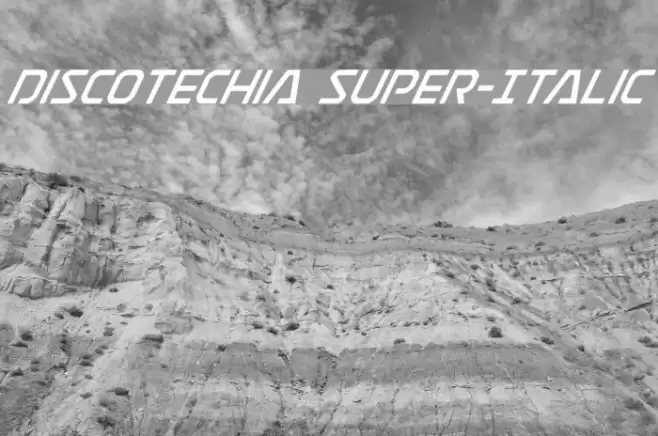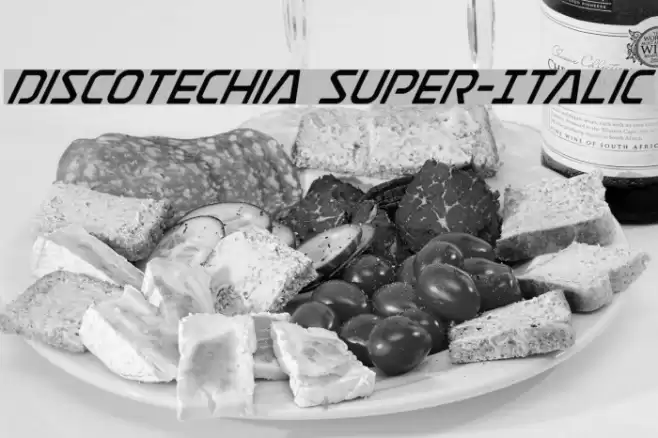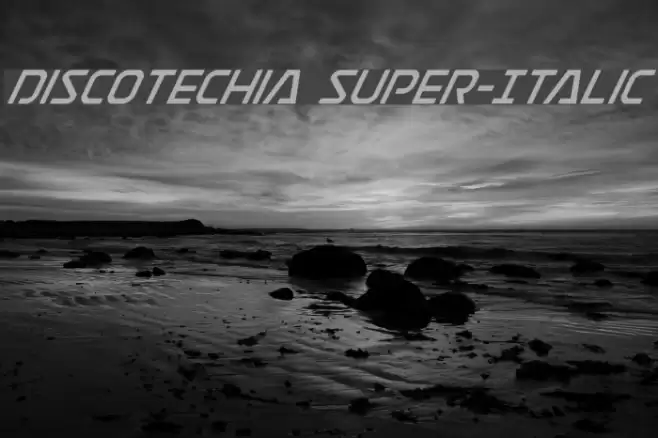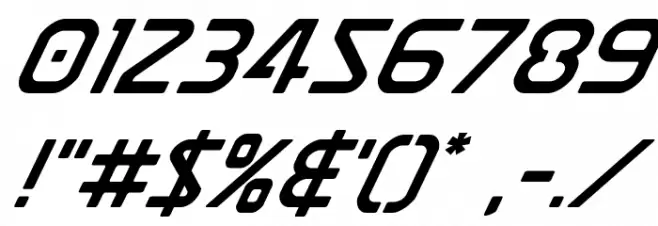
Discotechia Super-Italic Font
Discotechia Super-Italic Description
This font features a dynamic and modern italic style with a distinct slant, giving it a sense of motion and energy. The characters are sleek and angular, with sharp edges and a futuristic appearance. The uppercase and lowercase letters maintain a consistent style, enhancing readability while adding a unique flair. The numerals are bold and clear, matching the overall aesthetic. Special characters are well-integrated, maintaining the font's cohesive look. This font is ideal for projects that require a contemporary and energetic feel.
A dynamic, modern italic font with a sleek, angular design from Uncategorized fonts.
- Proposed Projects: Ideal for branding, advertising, sports-related designs, and modern digital interfaces.
- Use Case: Headlines, Logos, Digital interfaces